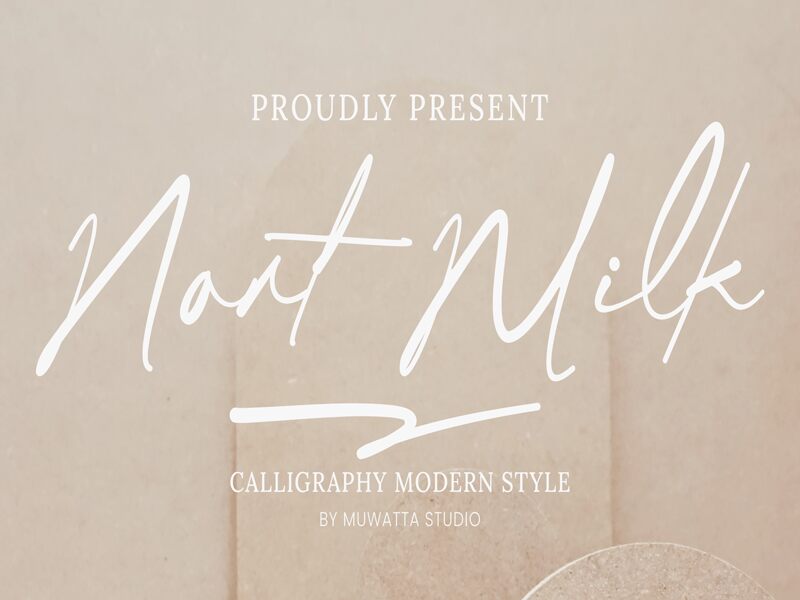
Nort Milk, the latest handwritten signature font by Muwatta Studio, is a perfect blend of sophistication and simplicity. Its semi-light weight adds a touch of elegance to any project, making it suitable for branding and packaging designs as well as greeting cards and invitations. The fluid strokes of Nort Milk create an authentic handcrafted feel that can bring a personal touch to logos or social media graphics. The versatility of this font makes it ideal for projects that require a softer touch while still maintaining a professional aesthetic. Upgrade your designs with Nort Milk today!
Nort Milk